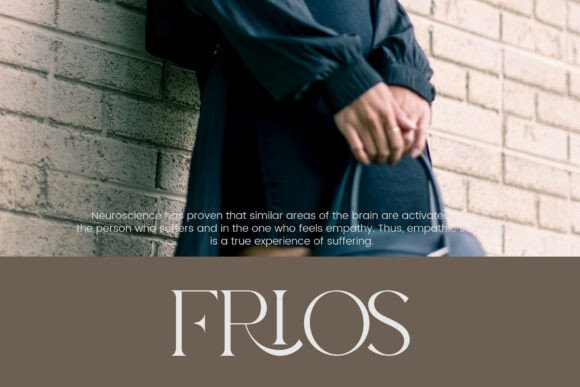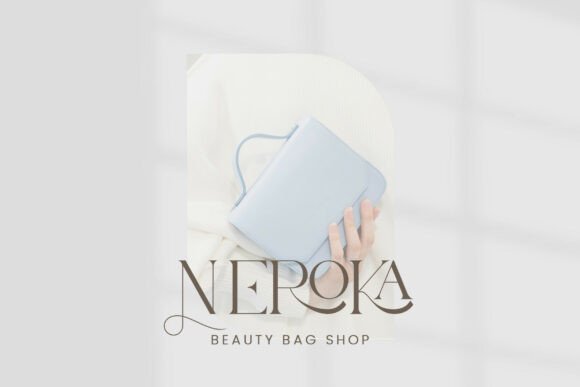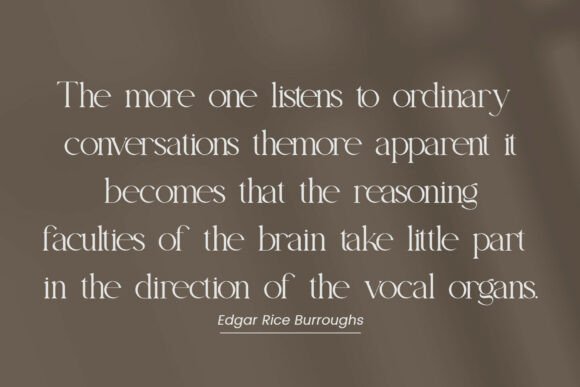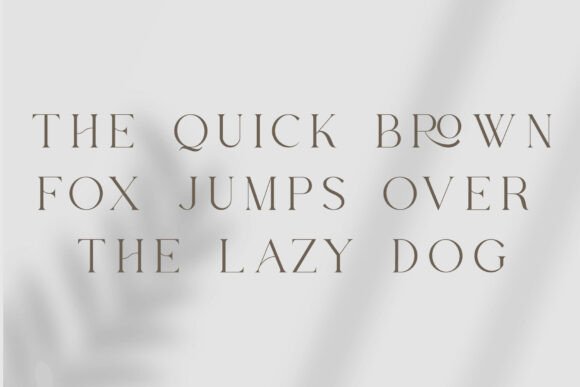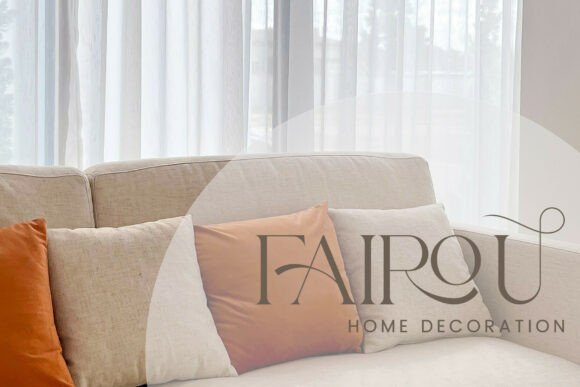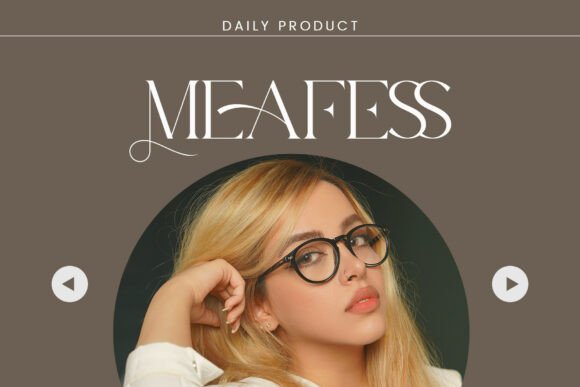
Introduction to Mirosse Font
Mirosse – Modern Typface Serif Font is a modern, minimalist serif font.
It’s perfect for various design needs, such as logos, brochures, videos, advertising branding, posters, invitations, and More This font is the perfect choice to make your designs look professional and appealing.